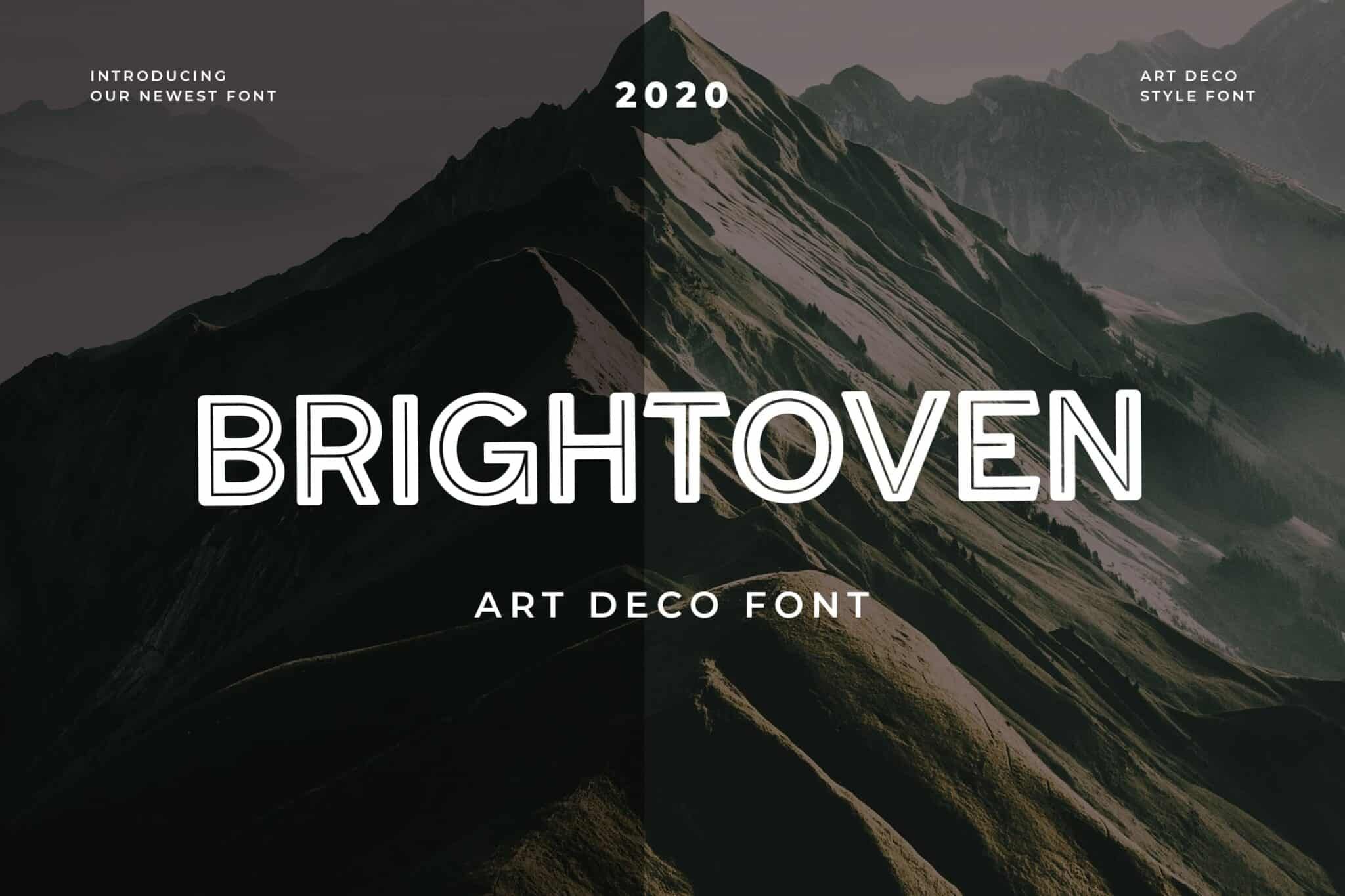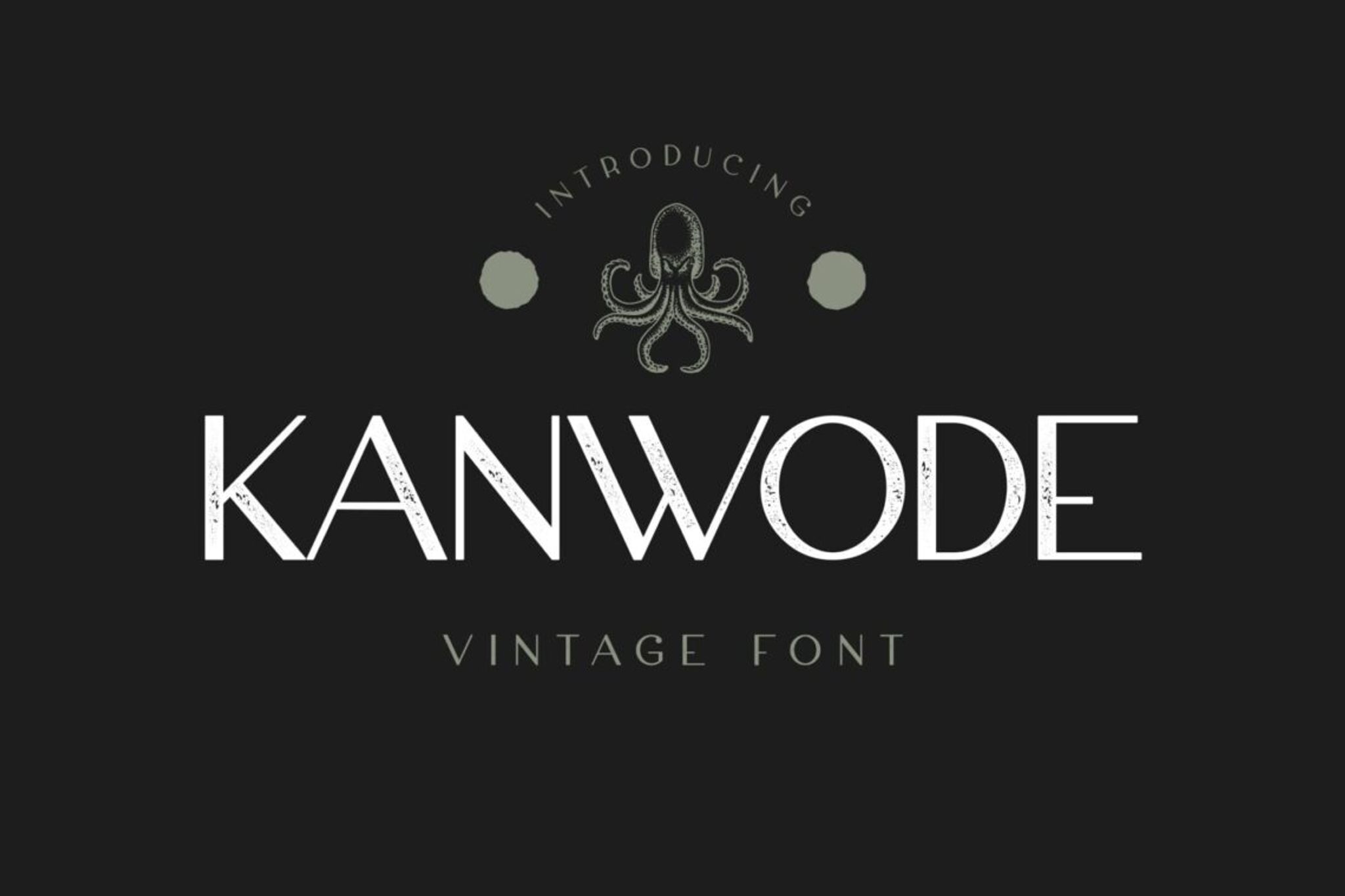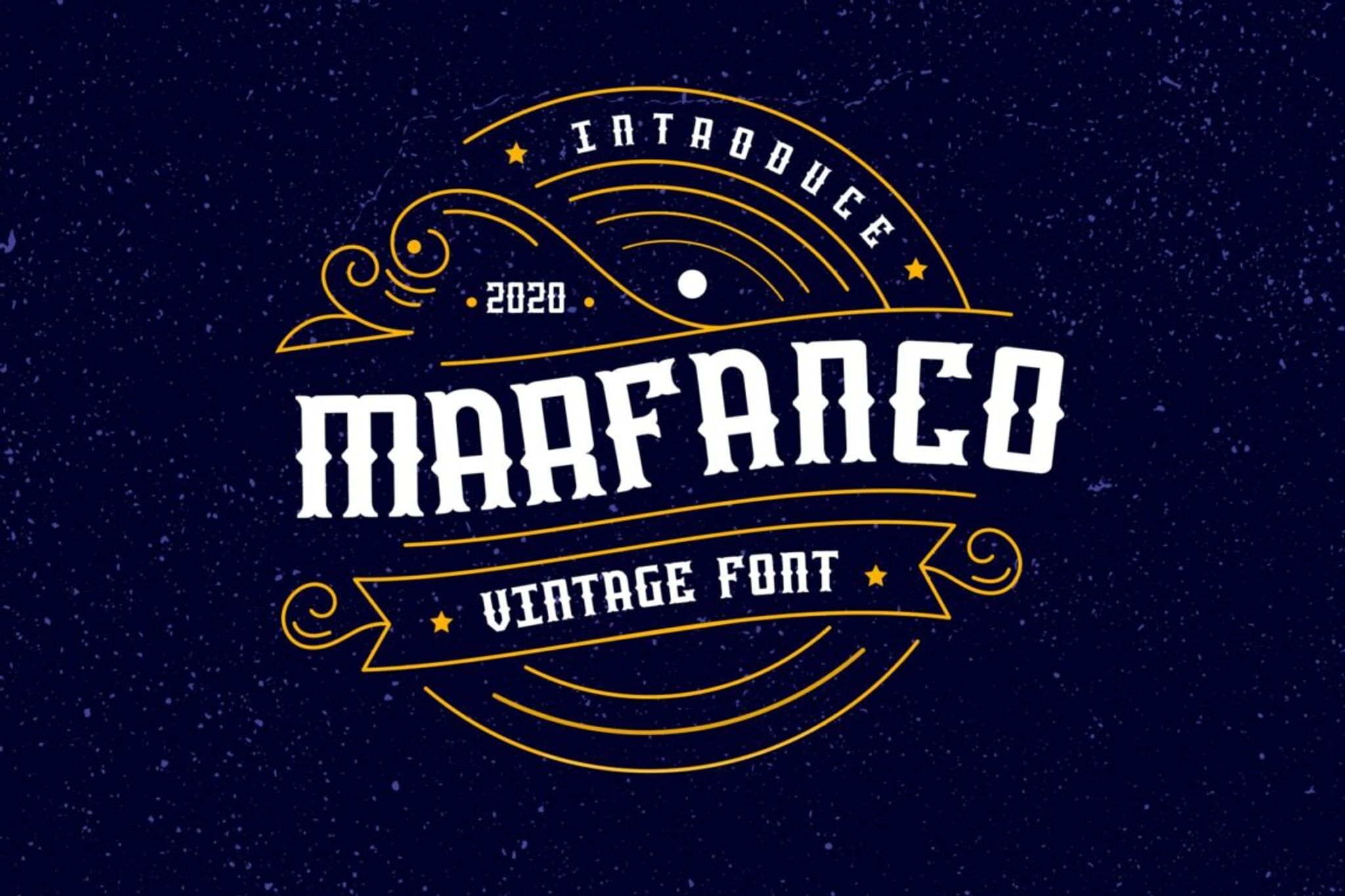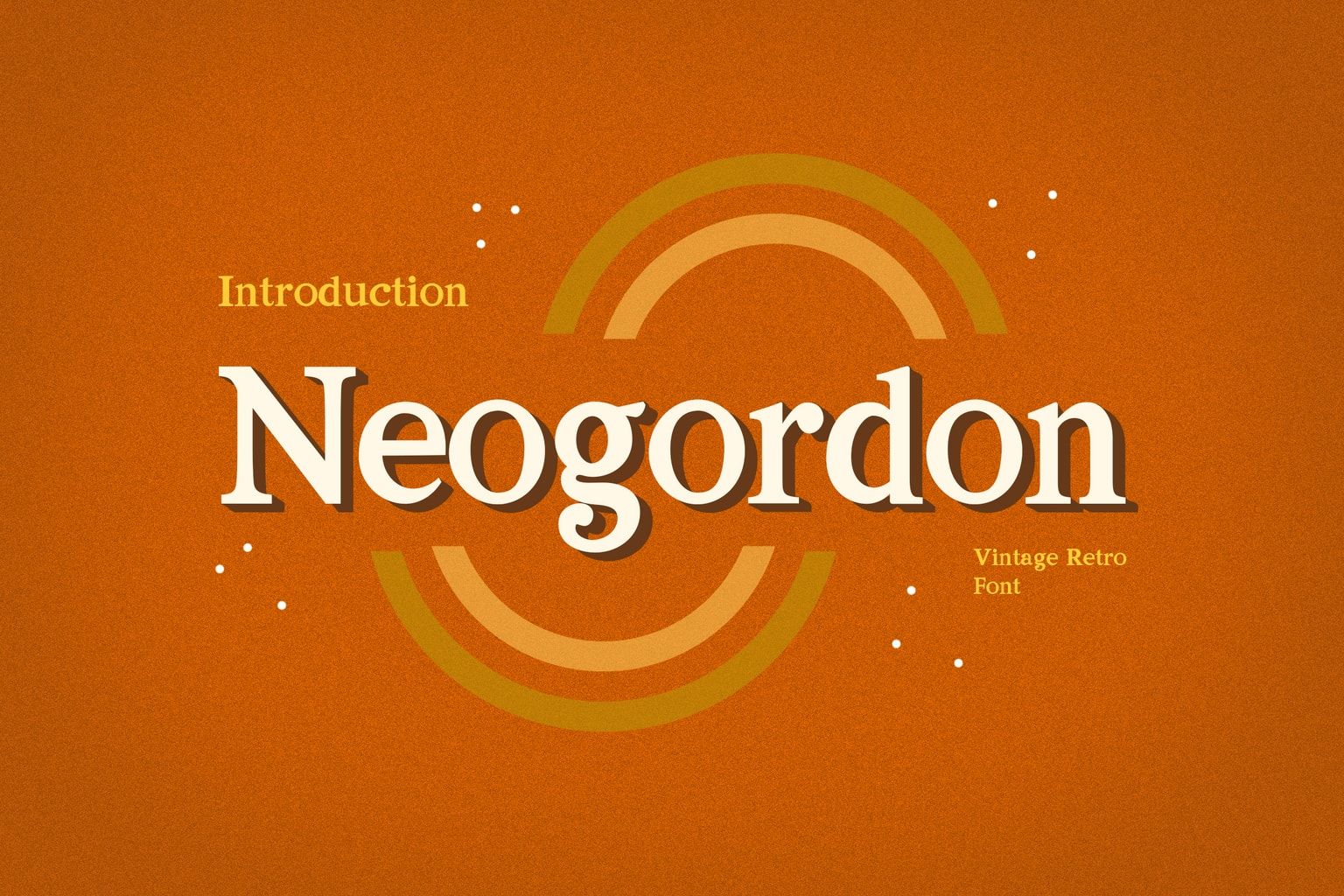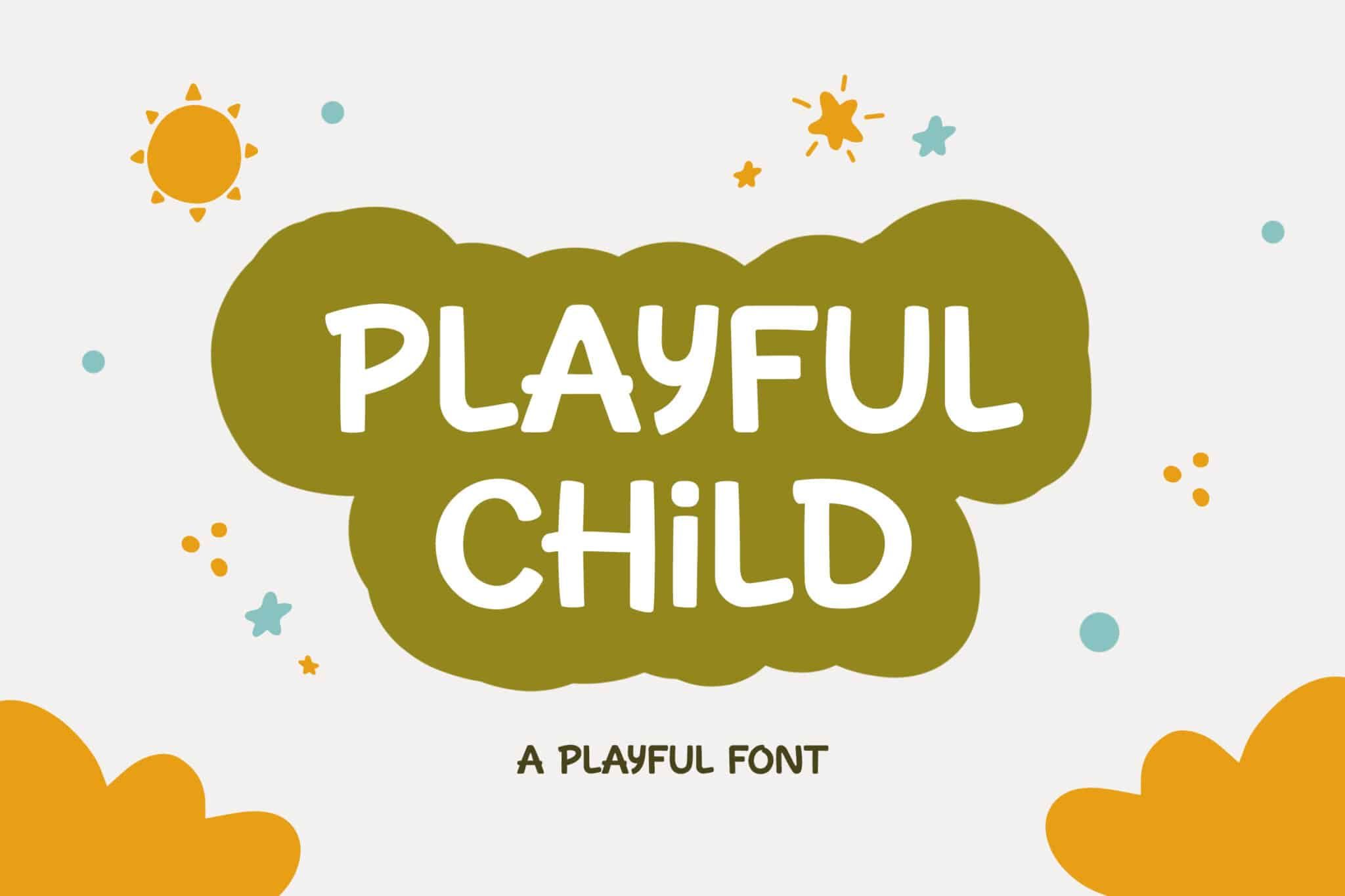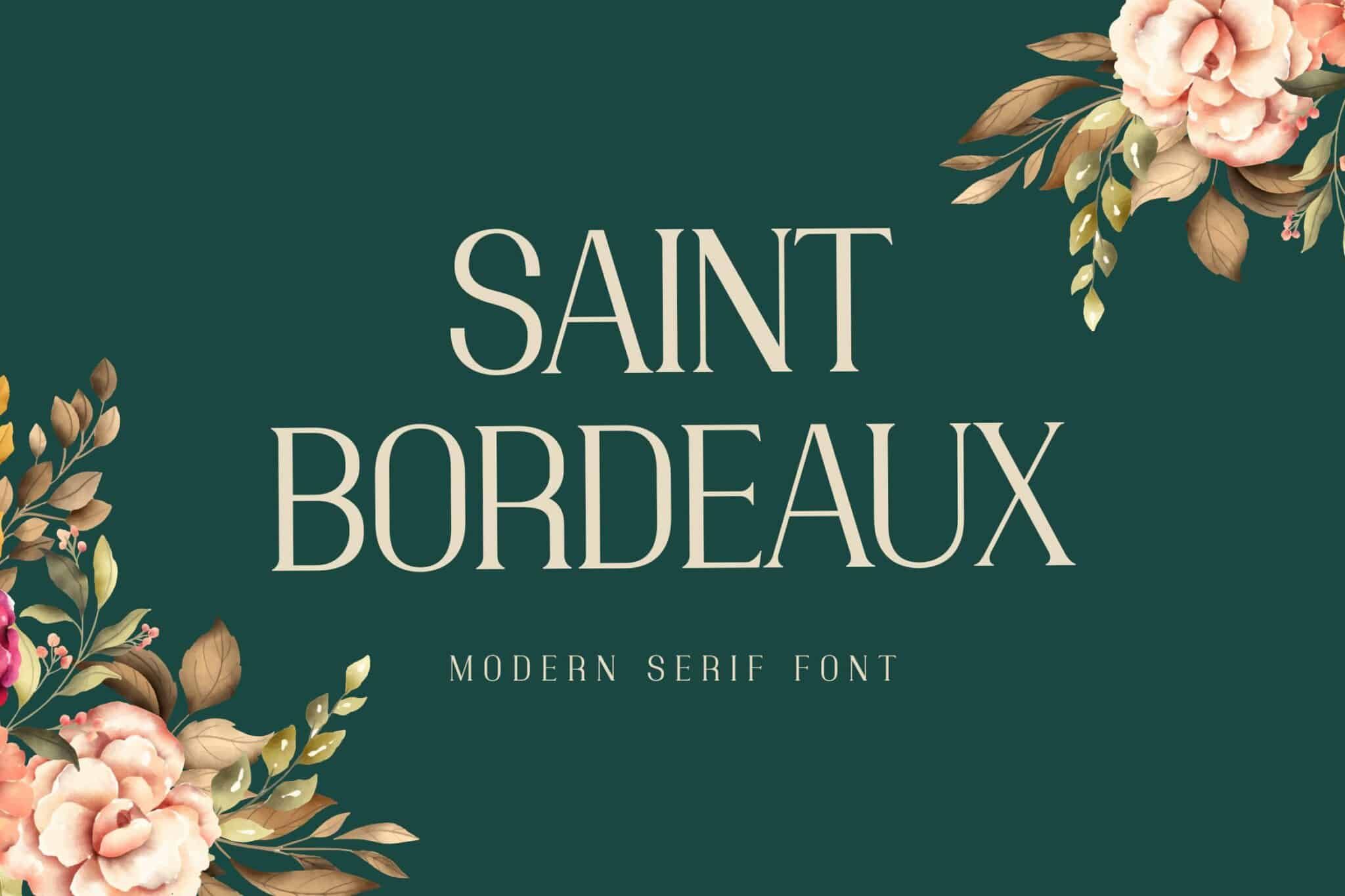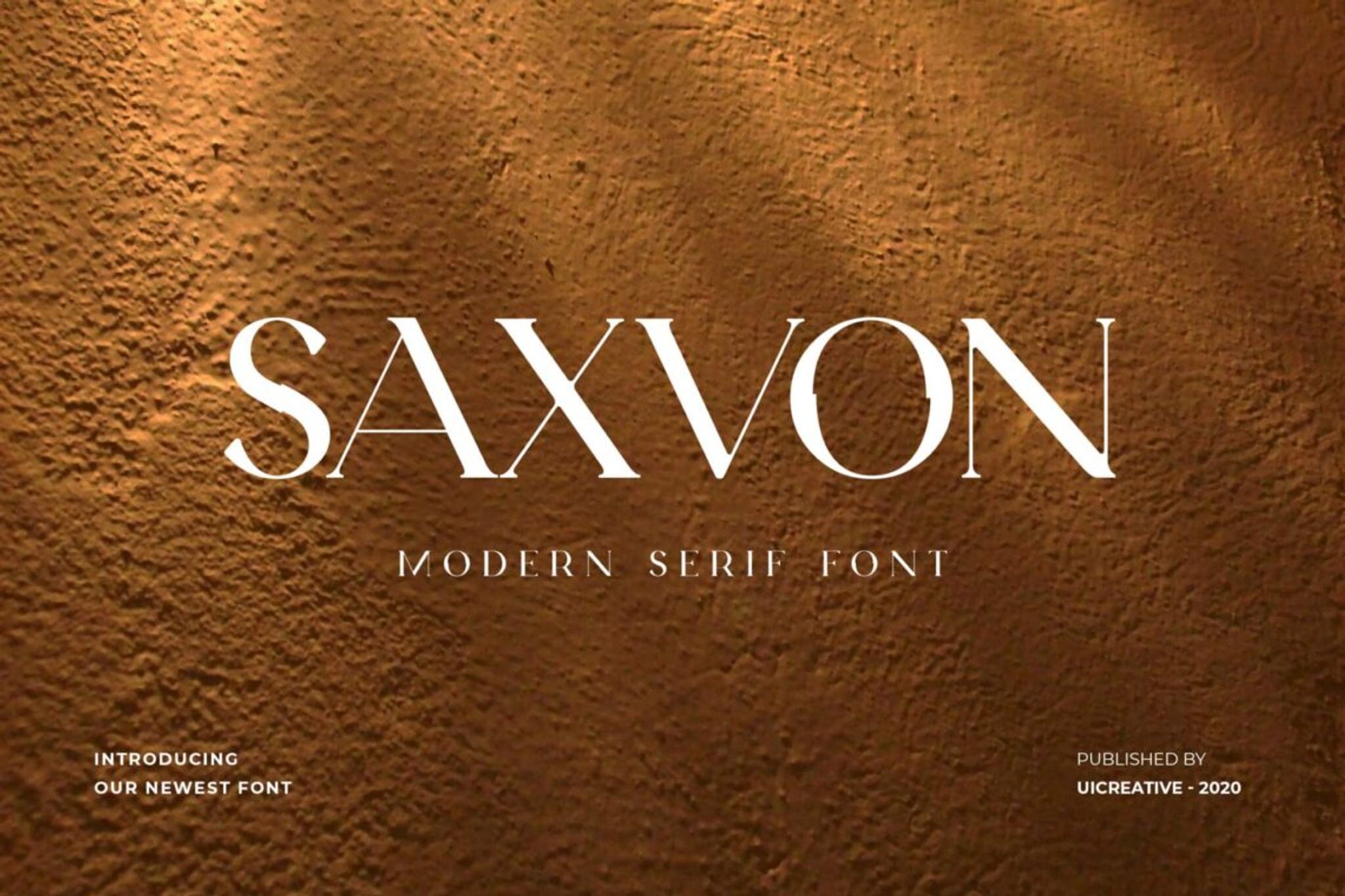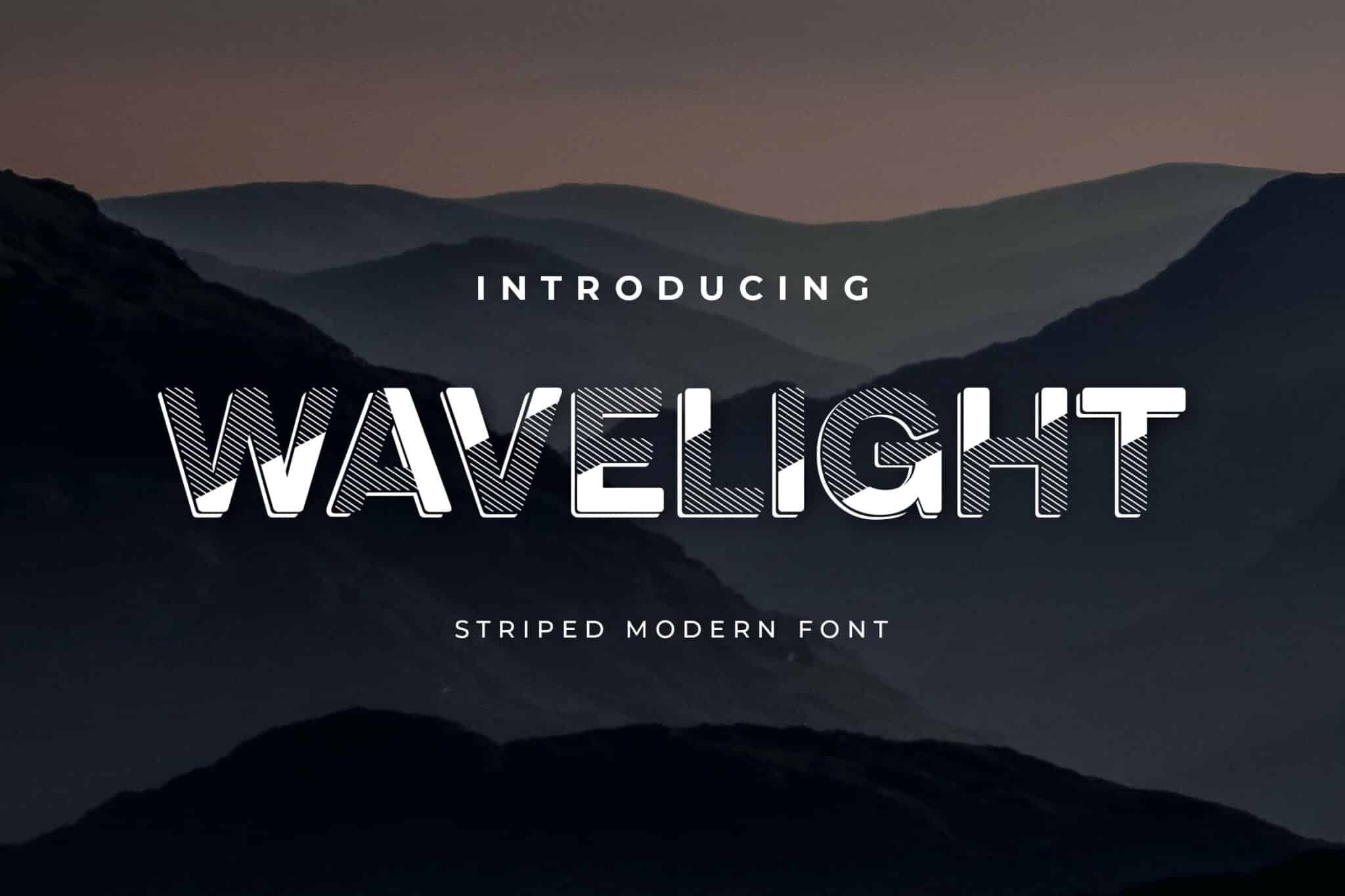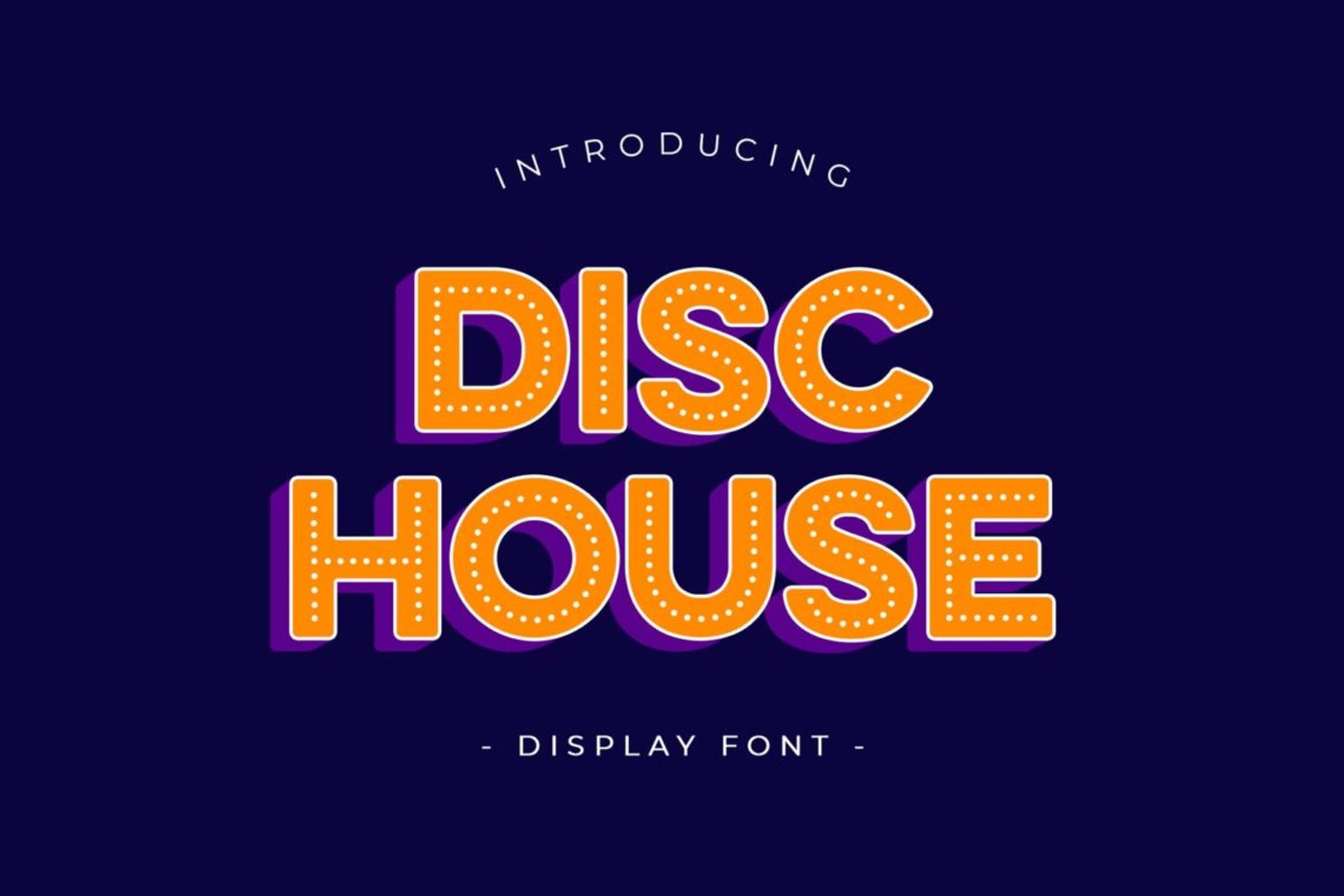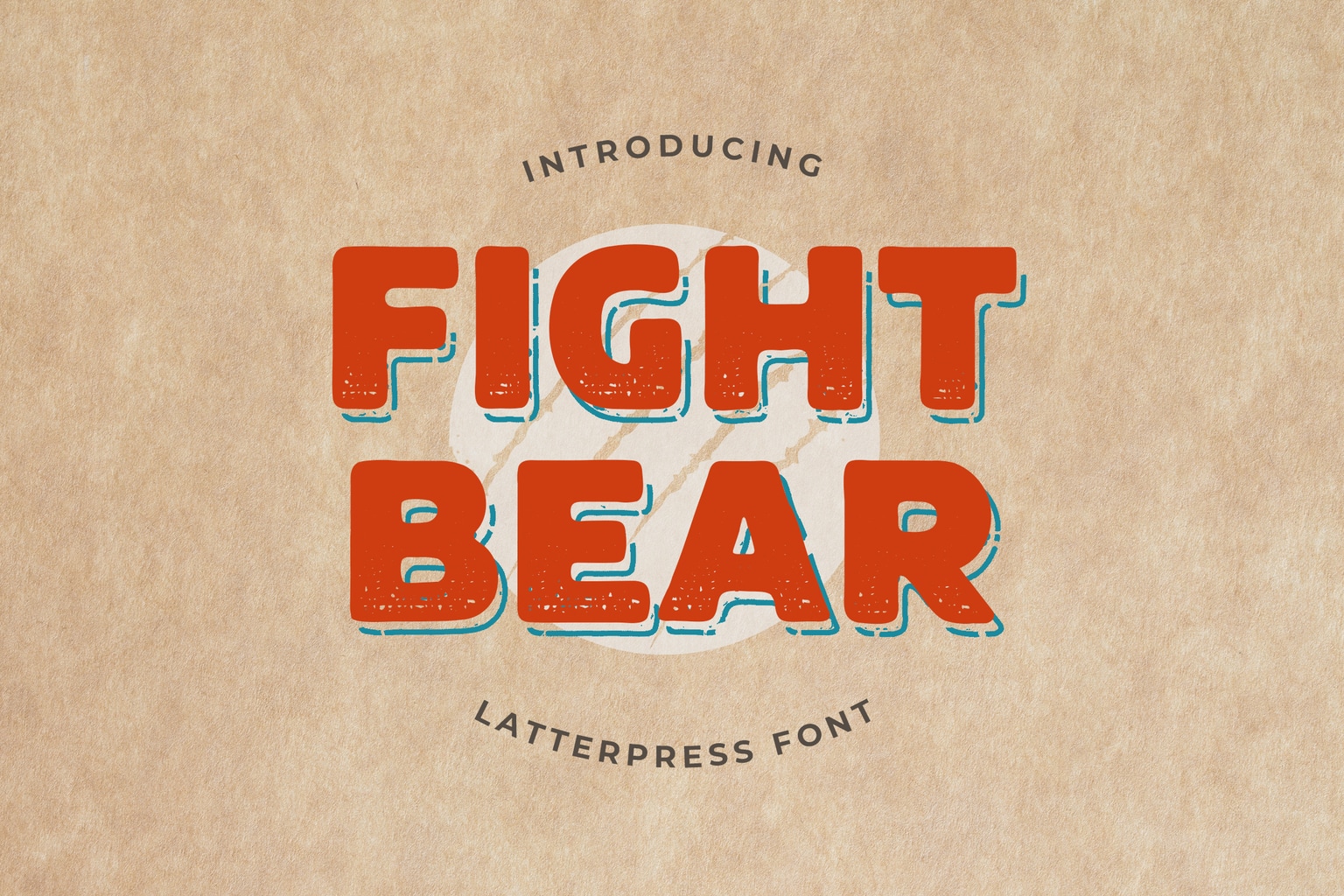
10 Best Display Font For Your Projects
If you are a graphic designer, you have the potential to work on a wide variety of projects, including branding, logo design, and even the design of websites. Depending on the customer, these could be either minor or significant initiatives. On the other hand, you could one day have a client who comes to you seeking a design that can be utilized, for example, on a billboard that will overlook the highway or if they are doing an event and want posters prepared for it. In this article, we will learn about display font (best display font and display font definition).
What is a Display Font?
Saxvon Serif Display Font
Here is the display font definition. Many graphic designers use display fonts because ordinary fonts, which you could ordinarily use in your graphic design work, won’t perform well enough to get the job done. As a result, many graphic designers resort to using display fonts.
We have compiled a list of what we believe to be the top display fonts for graphic design in the hopes that it will be helpful to you as you select new tools for your arsenal. Let’s start by defining a display font before moving on to anything else.
Best Display Font
Before we start our list, we thought it might be helpful to give you a sneak peek at what’s to come. You can look at our selections below, and even though they might not coincide with your ideas about which are the most effective display fonts for graphic design, we still invite you to read on. There’s the best display font you can pick!
1. Neogordon Serif Display Font
Neogordon Serif Display Font
This is a bold handwritten script with a rhythm that is easy to remember. Alternates are available in addition to the primary glyphs and characters, allowing you to tailor the font to your company’s aesthetic. You may use Neogordon for anything from logos and posters to t-shirts and other displays; it works incredibly well for the former!
2. Saint Bordeaux Serif Display Font
Saint Bordeaux Serif Display Font
This font is one of those modern display font you’ll immediately want to use in your designs after seeing it for the first time. Its refined aesthetic is a welcome addition to any design, be it an invitation, a book cover, a logo, an advertisement, or anything else. Various characters are present, such as letters, numbers, and symbols. Think about all the different ways you may use Saint Bordeaux to express yourself!
3. Playful Child Display Font
Playful Child Display Font
The use of intricate ligatures, which whimsically invited each character to dance and added a more decorative style to any of your prospective projects, regardless of the nature of those projects, was done to add a more decorative style.
Then, the use of remastered historical typeface will be able to infuse an arrangement with vitality without imparting an out-of-date air to the piece as a whole. You are welcome to incorporate it into creating a logotype or brand, as well as print-ready designs and projects that are solely digital.
4. Fight Bear Display Typeface Font
Fight Bear Display Typeface Font
The Fight Bear display font blends several different elements, such as the smooth and rounded curves and the flowing and angled strokes, into a single design that contains both traditional and new and innovative tastes.
Because it comes in several weights, you have a wide range of options to choose from when determining which typographic color will work best for your project. The body text should be set in a lighter weight, while headlines and other prominent material should be set in a more significant weight for maximum effect.
5. Wavelight Sans Serif Display Font
Wavelight sans Serif Display Font
This is a modern interpretation of the display font used for metal presses. It is a typeface solely intended for use as a display in font sizes greater than thirty points. The typeface has been developed so that web browsers running on desktop computers, laptops, and mobile devices may be used unrestrictedly everywhere on the internet.
Any creative project you are working on will benefit significantly from adding the typeface. It includes logos, advertisements, greeting cards, wedding invitations, and headlines. You are free to use it any way you see fit.
6. Gardena Quanto Serif Display Font Family
Gardena Quanto Serif Display Font Family
Look no further than Gardena Quanto display if you’re searching for a groovy, swirling, and exciting display font. Look at how its structure and aesthetics may be molded to fit your preferences. Use this display font in your Instagram, YouTube channel, greeting card designs, magazine headers, wedding invites, and more! The font family includes upper and lowercase letters, digits, and symbols, and it can be used in various languages.